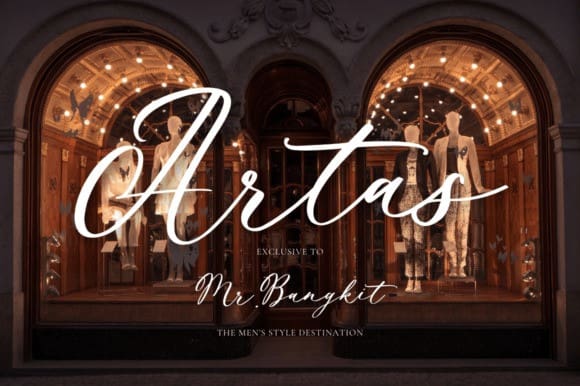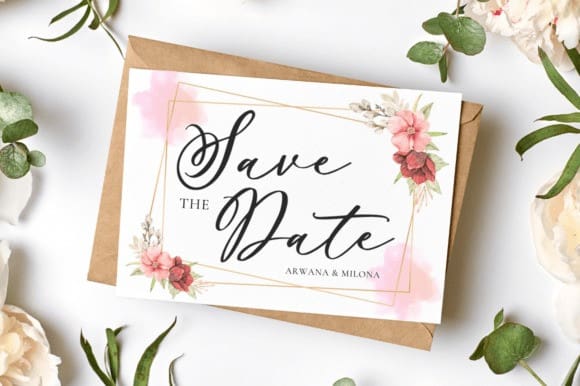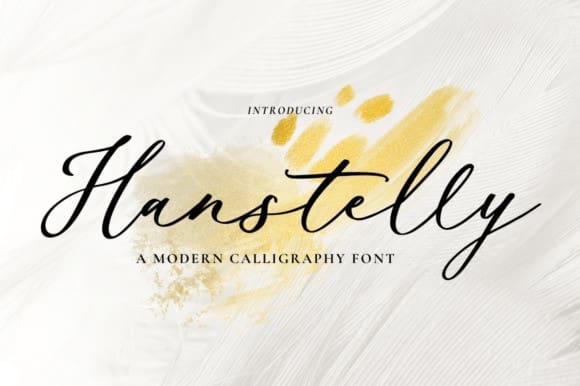
Hanstelly Script Font
Hanstelly Script Font, a natural calligraphy font that beautifully captures the essence of handwritten elegance. With its flowing strokes and authentic feel, this font evokes the charm of traditional calligraphy. Perfect for projects that require a touch of sophistication and grace, such as wedding invitations, branding, or elegant packaging. Hanstelly infuses your designs with a timeless and organic vibe, ensuring they stand out with a natural and elegant allure.